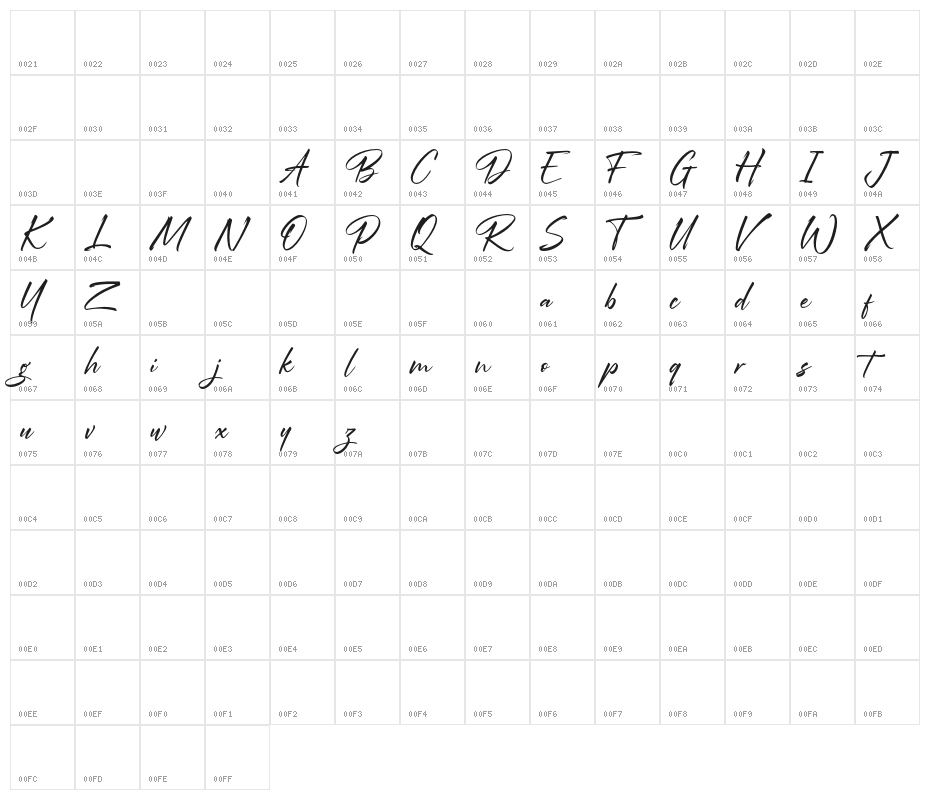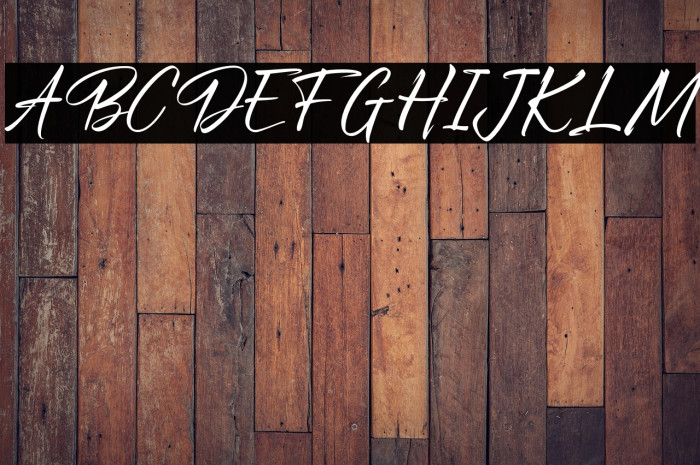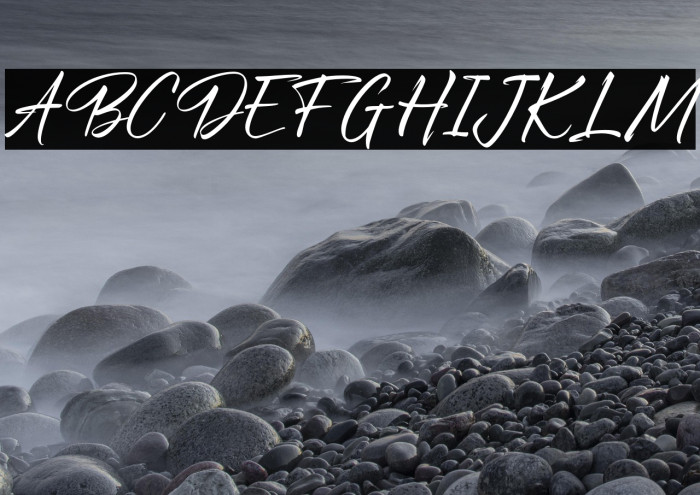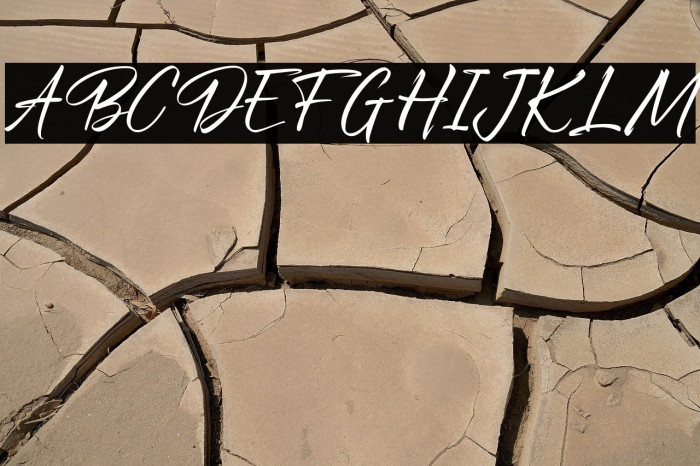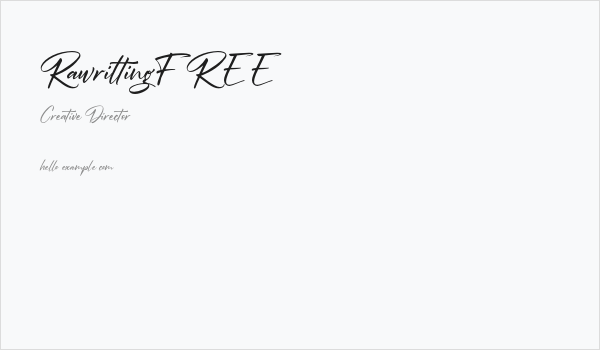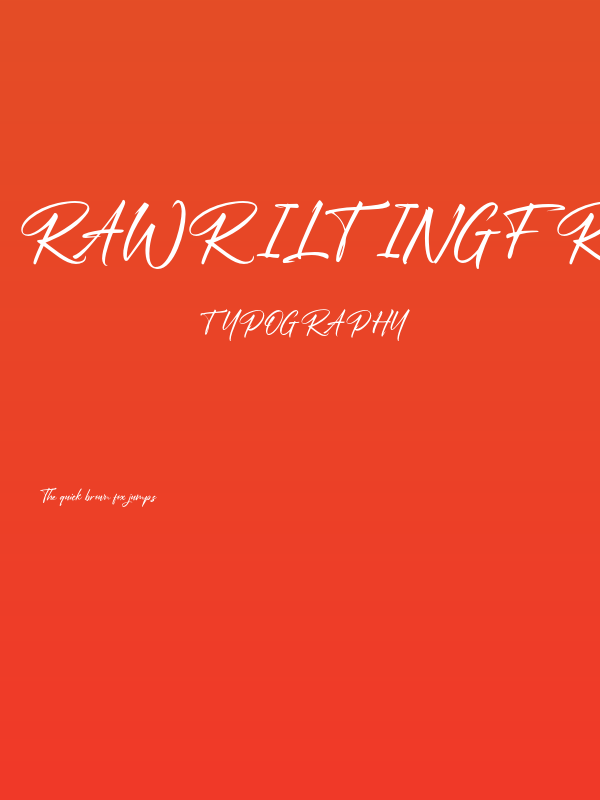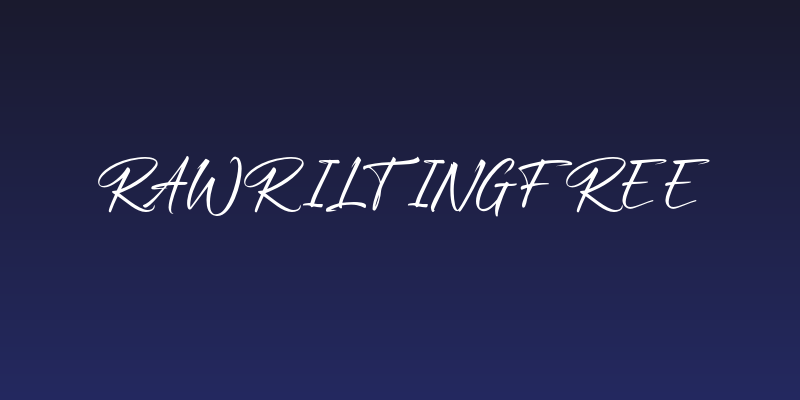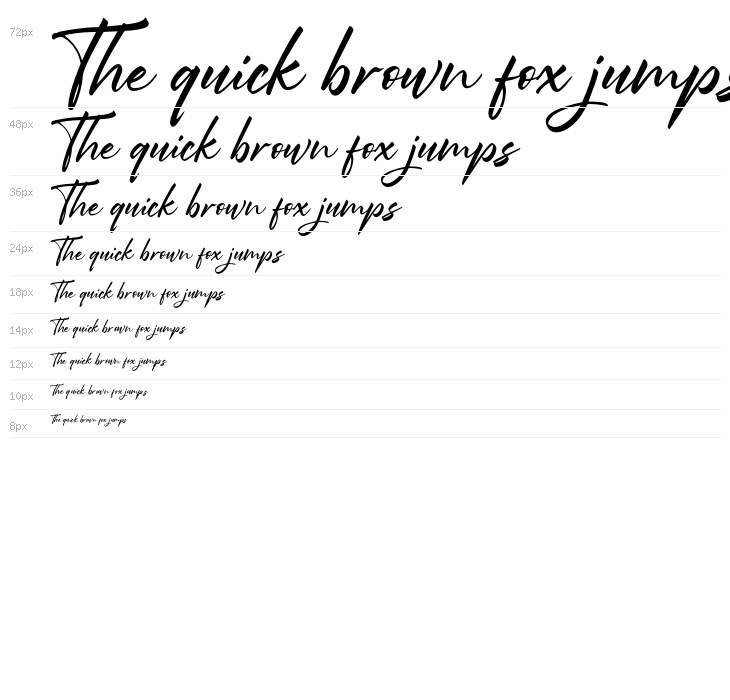
RawriltingFREE Font
RawriltingFREE Description
This font exudes a dynamic and elegant script style, characterized by its fluid and connected letterforms. The uppercase letters are bold and sweeping, with a graceful flow that suggests movement and sophistication. The lowercase letters maintain a consistent style, with smooth curves and a slightly slanted orientation that enhances the handwritten feel. The numerals and special characters are crafted with the same attention to detail, ensuring a cohesive look across all elements. This font is ideal for projects that require a personal touch, such as invitations, branding, or any design that seeks to convey elegance and creativity.